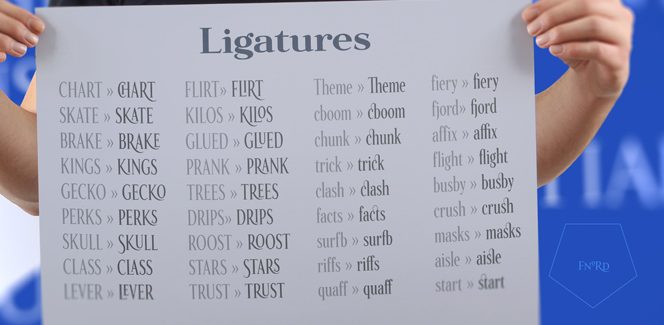
Fnord by Paulo Goode – the best side of a conspiracy
Fnord is the latest font family, released by the Irish designer Paulo Goode. This time his inspiration comes from an unusual source – the 1970’s works of the authors Robert Anton Wilson and Robert Shea. The word “fnord” in particular is central to their conspiracy fiction The Illuminatus Trilogy. In these books this fictional word has hypnotic power over the unenlightened and brings about feeling of fear and confusion in them. However, it were several important numbers in the novels – 5, 17, 23, 40 and 93 that had the greatest impact on how Fnord typeface was drawn and looks in terms of geometry and spacing.
Fnord is a serif font family with pronounced humanist appearance. It includes five weights in four styles – Regular, Italic, Condensed and Extended, plus the very interesting display Inline font. Each font contains over 650 glyphs with full European character set. On top of that, Fnord offers superb small caps and great OpenType ligatures and alternates as well as lining figures. Overall, this typeface gives plenty of typographic opportunities and will help the more experienced designers to get perfect results that will be unique. Fnord will be most appropriate for titling, headlines, display purposes and especially branding.
Fnord font family is another masterpiece release of the Cork based Paulo Goode after his Carrig and Eponymous typefaces. Once again, like it was in his previous fonts, Paulo shows us that the inspiration for a really talented artist can come from virtually anywhere.